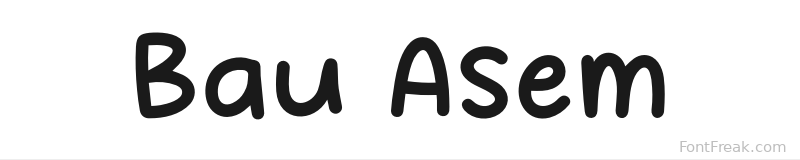
Bau Asem
Bau Asem is a captivating display font designed by Syaf Rizal, released as freeware. This unique typeface falls into the category of decorative fonts, featuring a playful and modern aesthetic that can elevate any design project. The font is characterized by its bold stroke weight, which creates a strong presence while maintaining a sense of whimsy. The letters exhibit a balanced contrast, allowing for both visibility and style. The spacing is well-considered, ensuring that the font remains legible even in larger sizes.
Bau Asem is particularly versatile, making it suitable for a variety of applications. Its lively design makes it an excellent choice for wedding invitations, where it can add a touch of elegance and fun. It is also a great fit for movie posters, helping to capture the attention of potential viewers with its eye-catching style. Restaurant menus can benefit from Bau Asem’s charm, drawing in customers with a unique presentation of offerings. Additionally, this font can be used effectively in branding materials, especially for small businesses looking to convey a friendly and approachable image.
Targeted primarily at graphic designers, small business owners, and content creators, Bau Asem provides a refreshing option for those seeking to make a statement. The font’s distinct personality allows it to stand out in a crowded market, appealing to those who appreciate creativity and originality in typography.